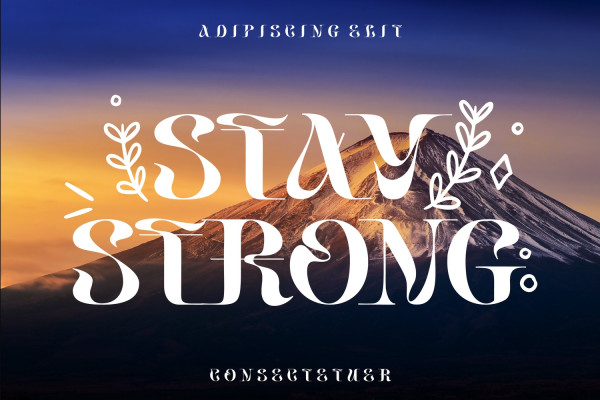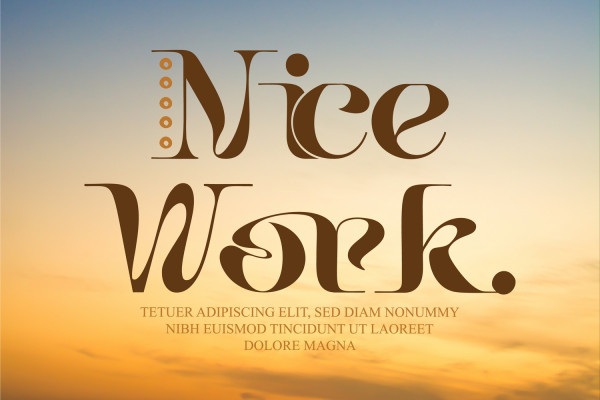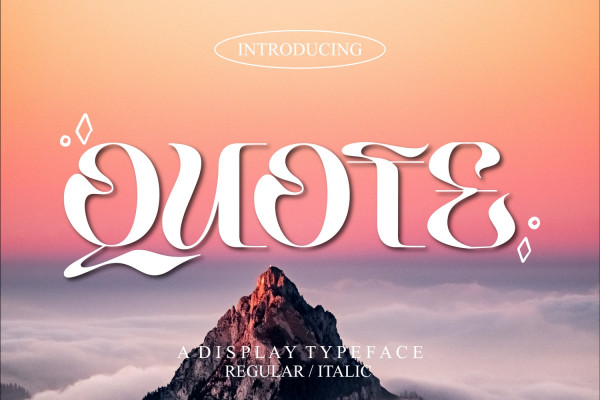
Quote Font
Quote Font is a quirky Serif font, a modern display typeface with a unique and classy style. It has a modern and vintage look. This typeface deeply explores letterforms beyond common boundaries and creates new possibilities in letter structure. It’s inspired by medieval typography, developed into an elegant and unique form, making it especially suitable for use in display, branding, logos, and quotes. The font can be used on flyers, posters, stories, invitations, t-shirts, stickers, and more.
Quote Display was built with OpenType features and includes 100 ligatures, alternate, numbers, punctuation, and it also supports other languages.